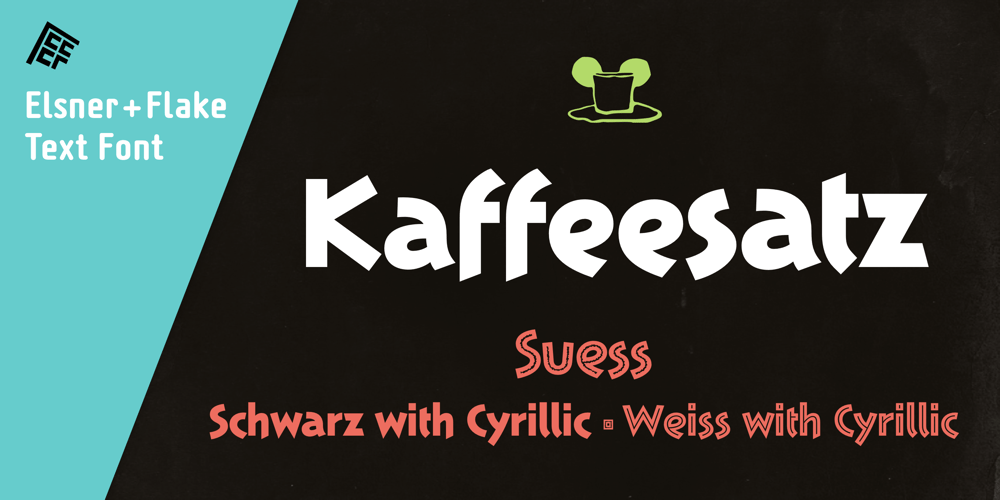
EF Kaffeesatz Font Family was designed by Ralf Borowiak and published by Elsner+Flake. EF Kaffeesatz contains 3 styles and family package options. The Kaffeesatz EF typeface was designed in 1993 by Ralf Borowiak in three weights: “Schwarz”, “Weiß” and „Süß“ (“Black“, “White” and “Sweet”). Since it is experiencing ever increasing popularity, the Elsner+Flake Designstudios augmented the “Schwarz“ and “Weiß“ versions with a complement of Cyrillic characters.